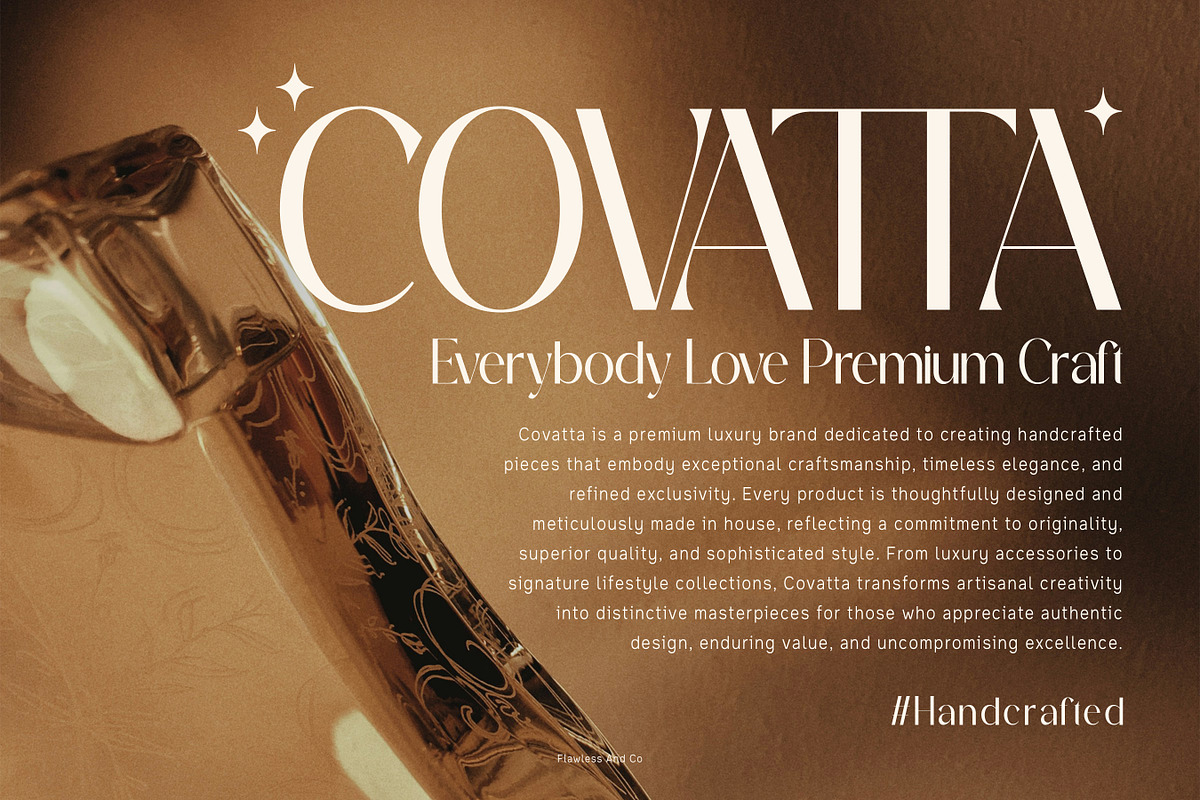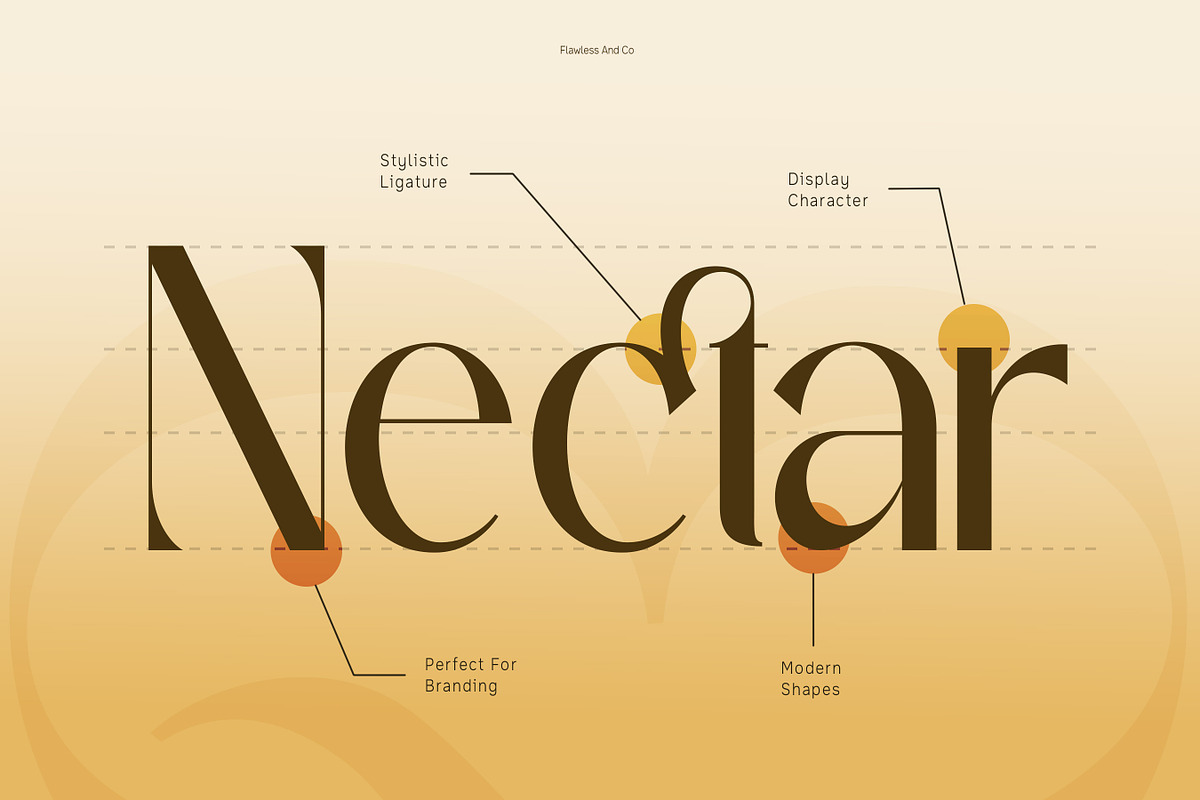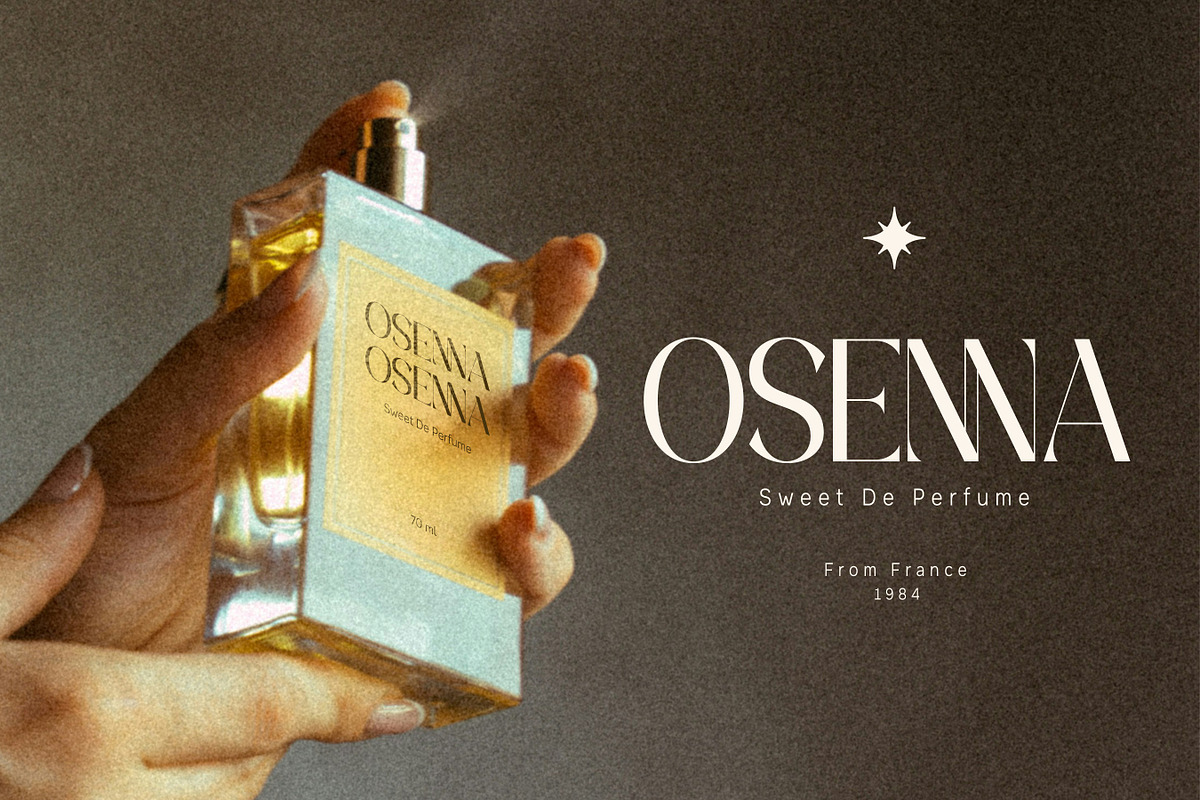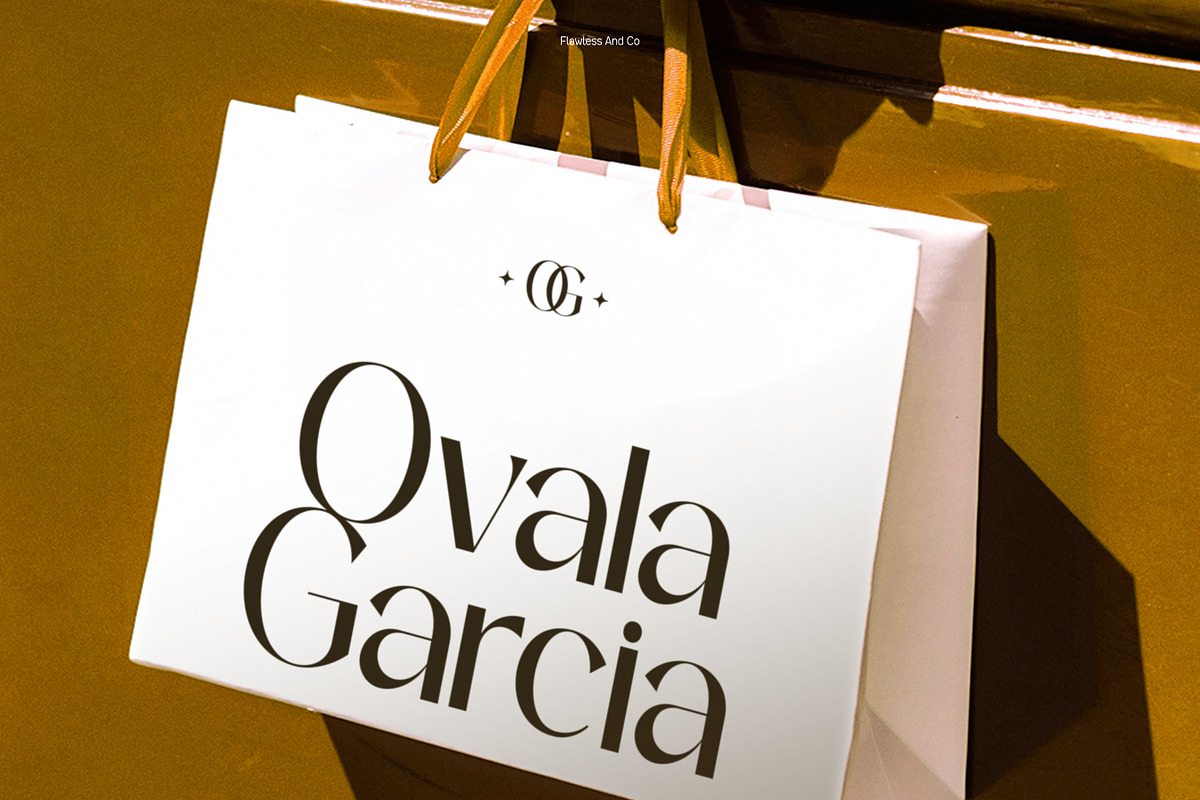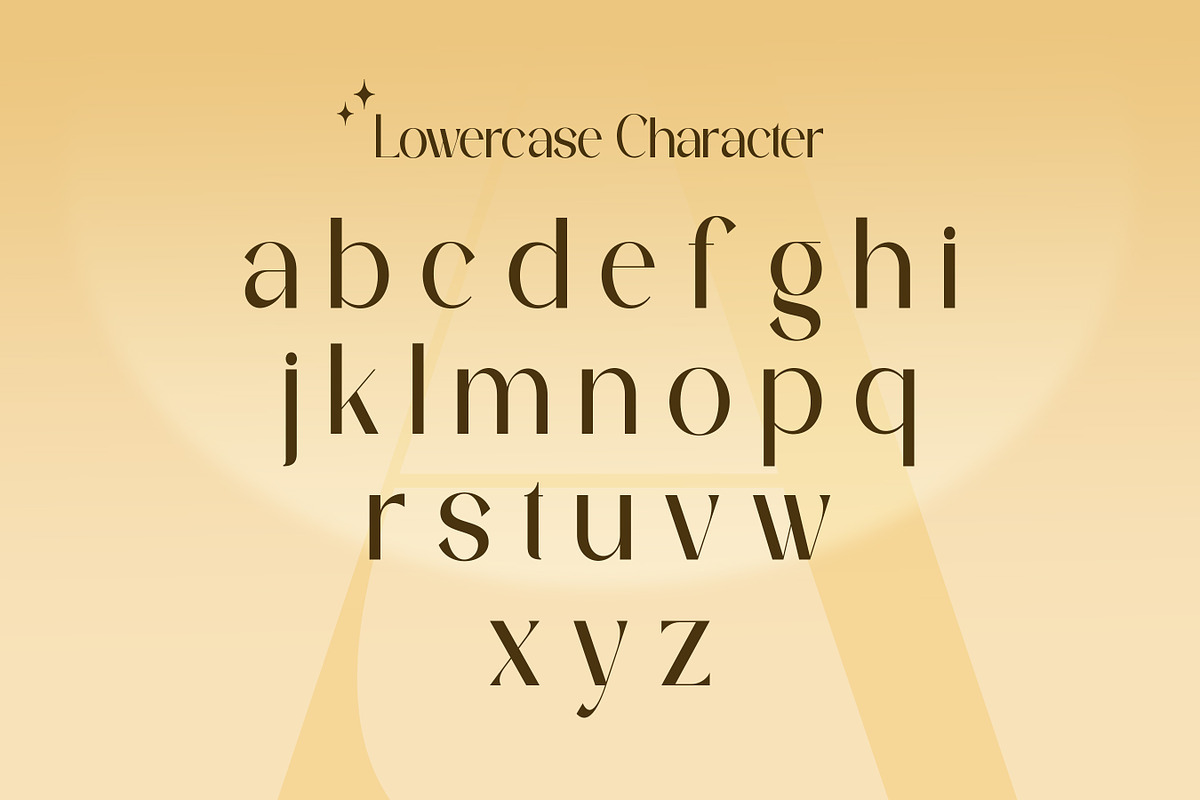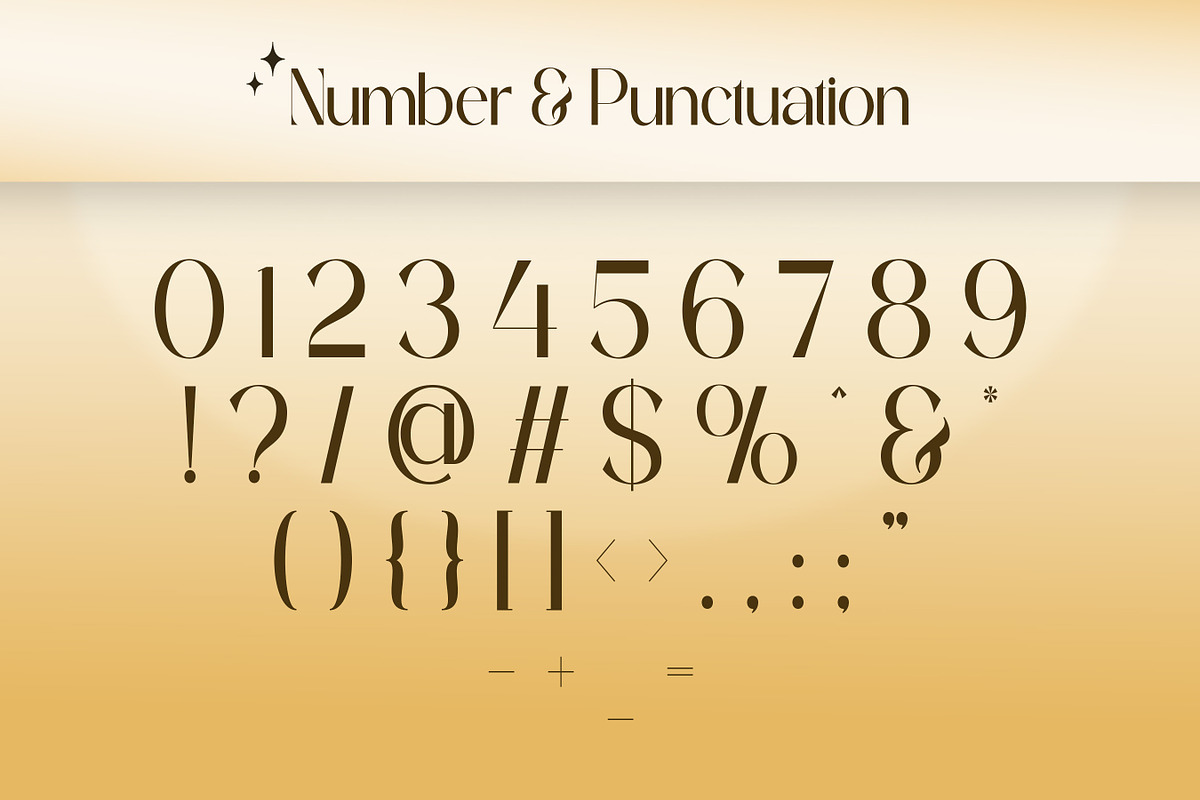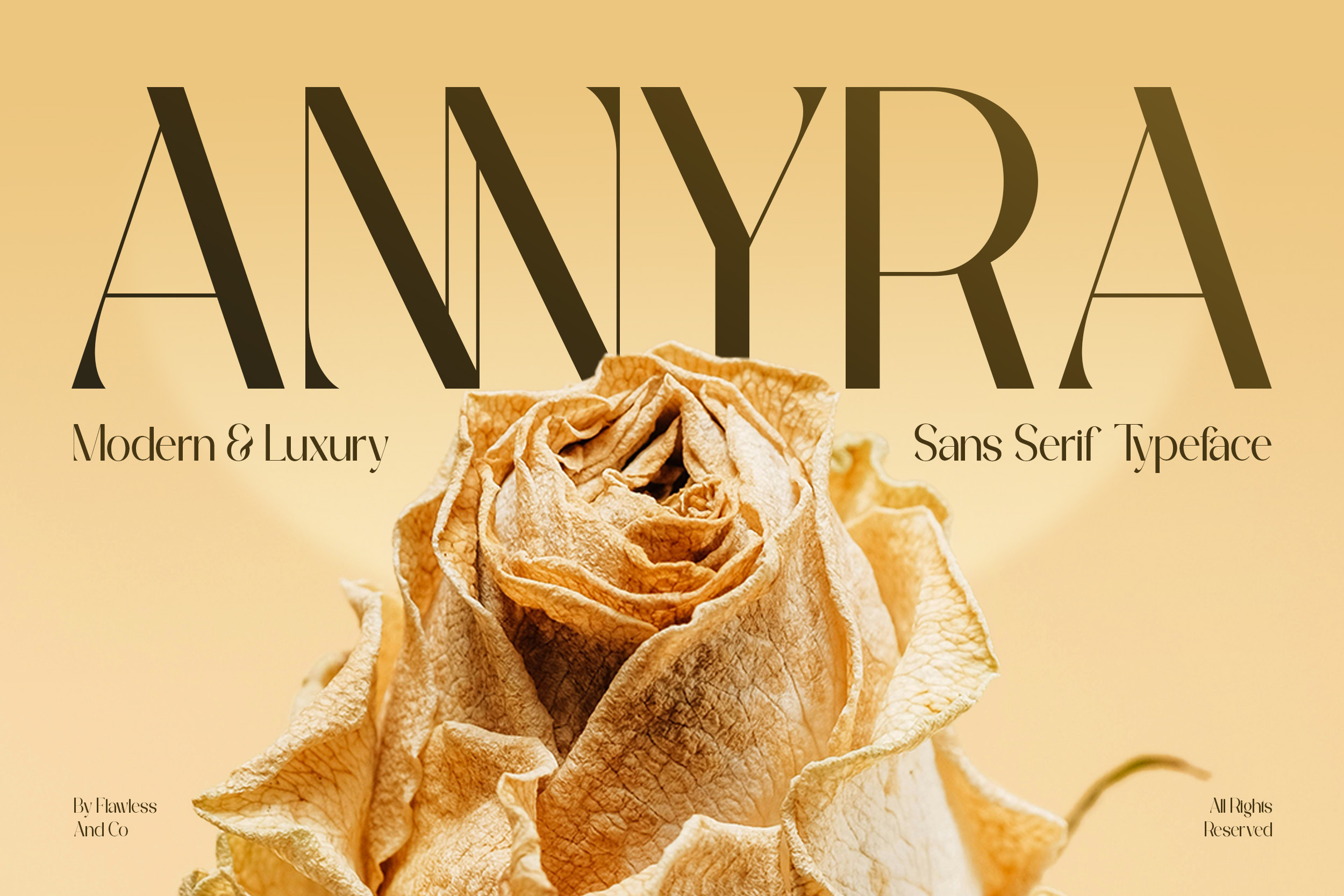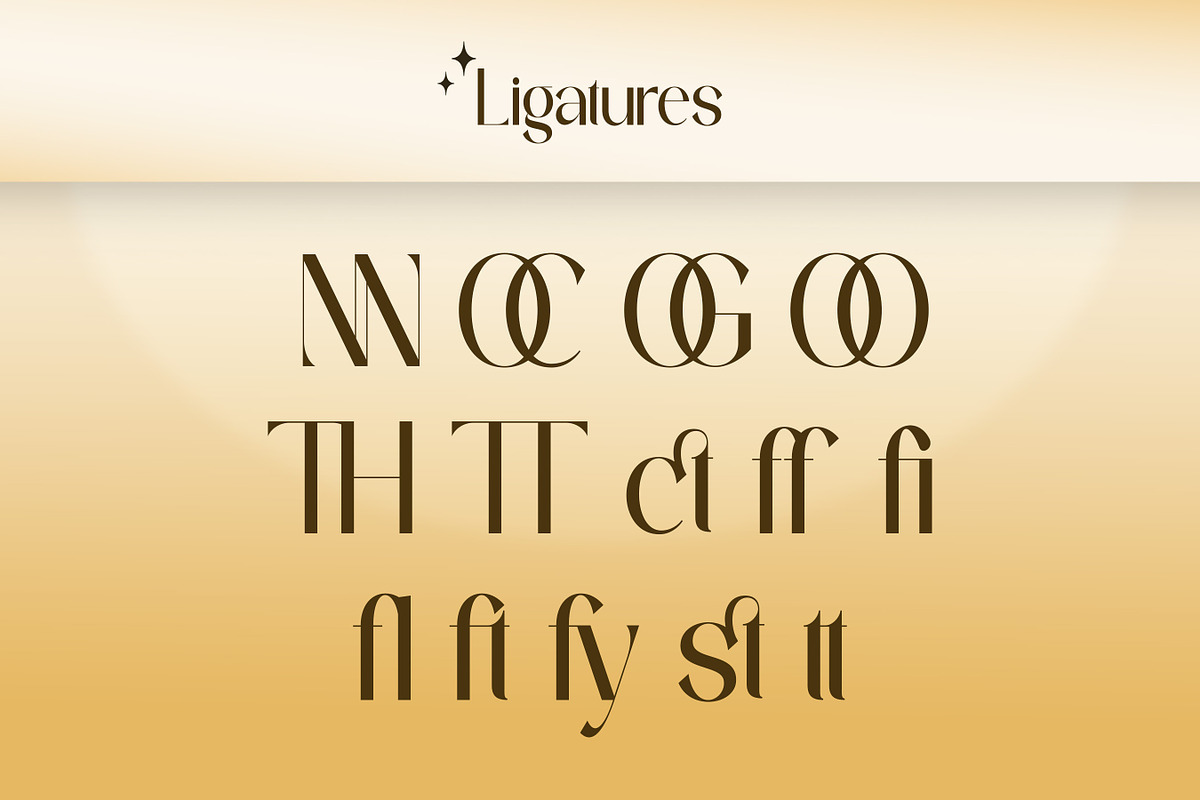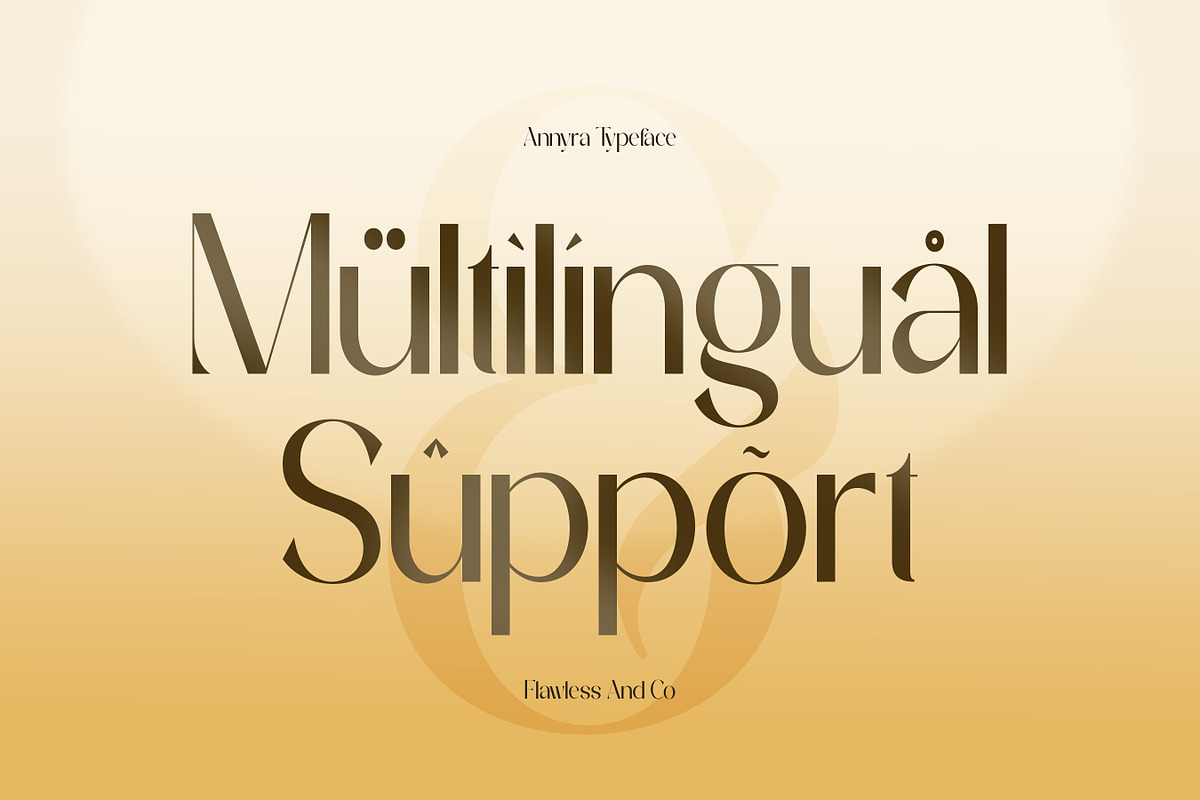
Annyra - Modern Luxury Sans Font
Annyra - Modern Luxury Sans Serif Font
Annyra is a modern luxury sans serif font created to express elegance through simplicity. With its refined high-contrast strokes, graceful curves, and sophisticated proportions, Annyra offers a timeless aesthetic that effortlessly blends contemporary minimalism with classic luxury. Every letter is carefully designed to create a striking visual rhythm, making your typography feel graceful, exclusive, and unforgettable.
Alternates & Ligatures
Who should use Annyra?
Annyra is designed for branding specialists, creative studios, fashion designers, luxury entrepreneurs, publishers, and anyone looking to build a refined visual identity with modern elegance. From premium branding to editorial masterpieces, Annyra helps every project communicate confidence, sophistication, and lasting beauty.
Suitable For:
Luxury branding and visual identity
Fashion and beauty brands
Editorial and magazine design
Jewelry and perfume packaging
Boutique logo design
Wedding invitations and stationery
Premium product packaging
Hotel and cafe branding
Social media campaigns
Elegant modern typography